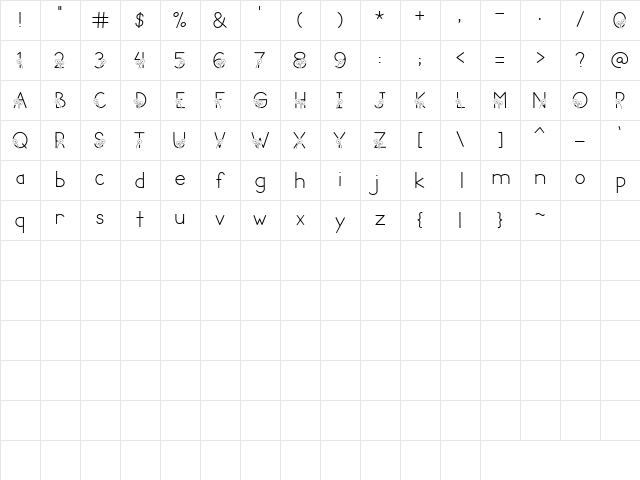
LD Dandelion Regular
Design Context for LD Dandelion
LD Dandelion is a composed and adaptable typeface that performs quietly and consistently across a wide range of design contexts.
Pro Tip: Use LD Dandelion in both headline and body roles to test its range before committing to a single application.